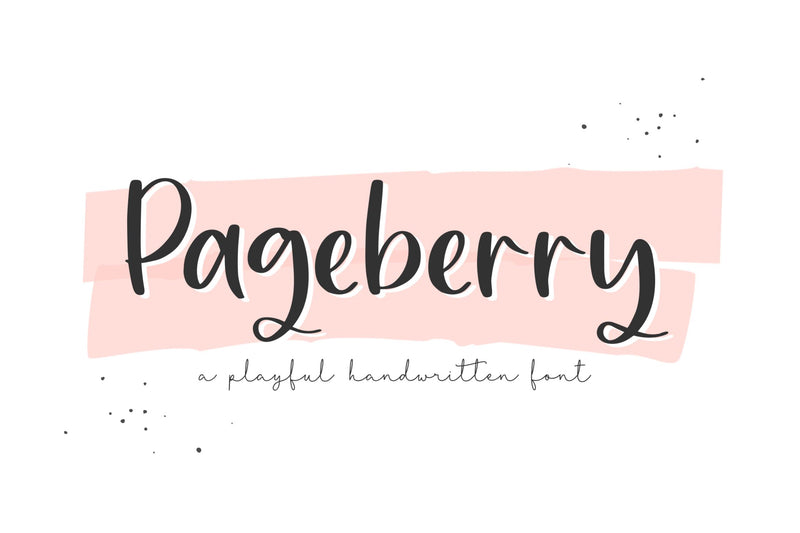
Pageberry
Proudly Present, Pageberry
Pageberry is a Playful Handwritten Font
Pageberry is perfect for product packaging, branding project, megazine, social media, wedding, or just used to express words above the background.